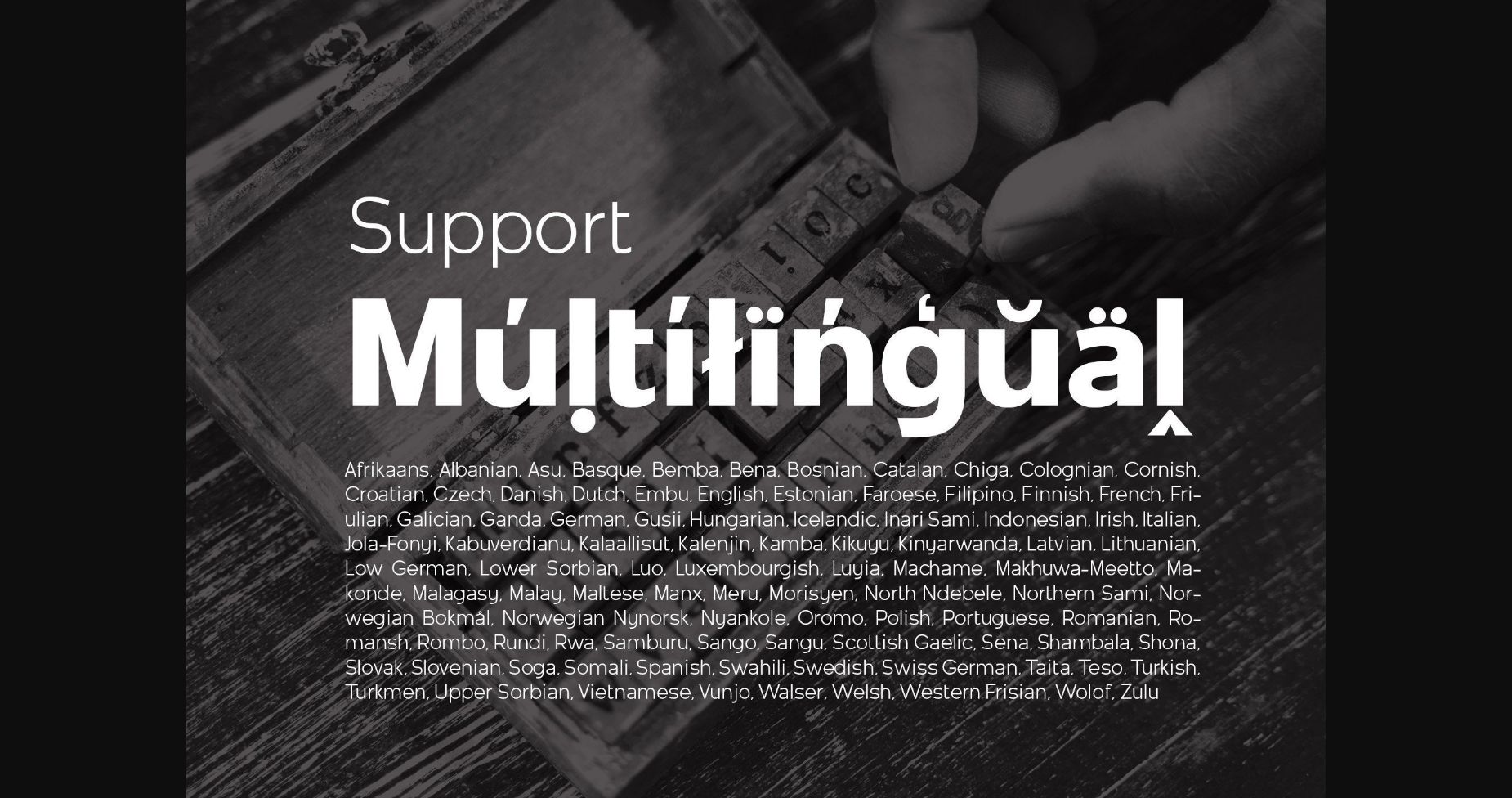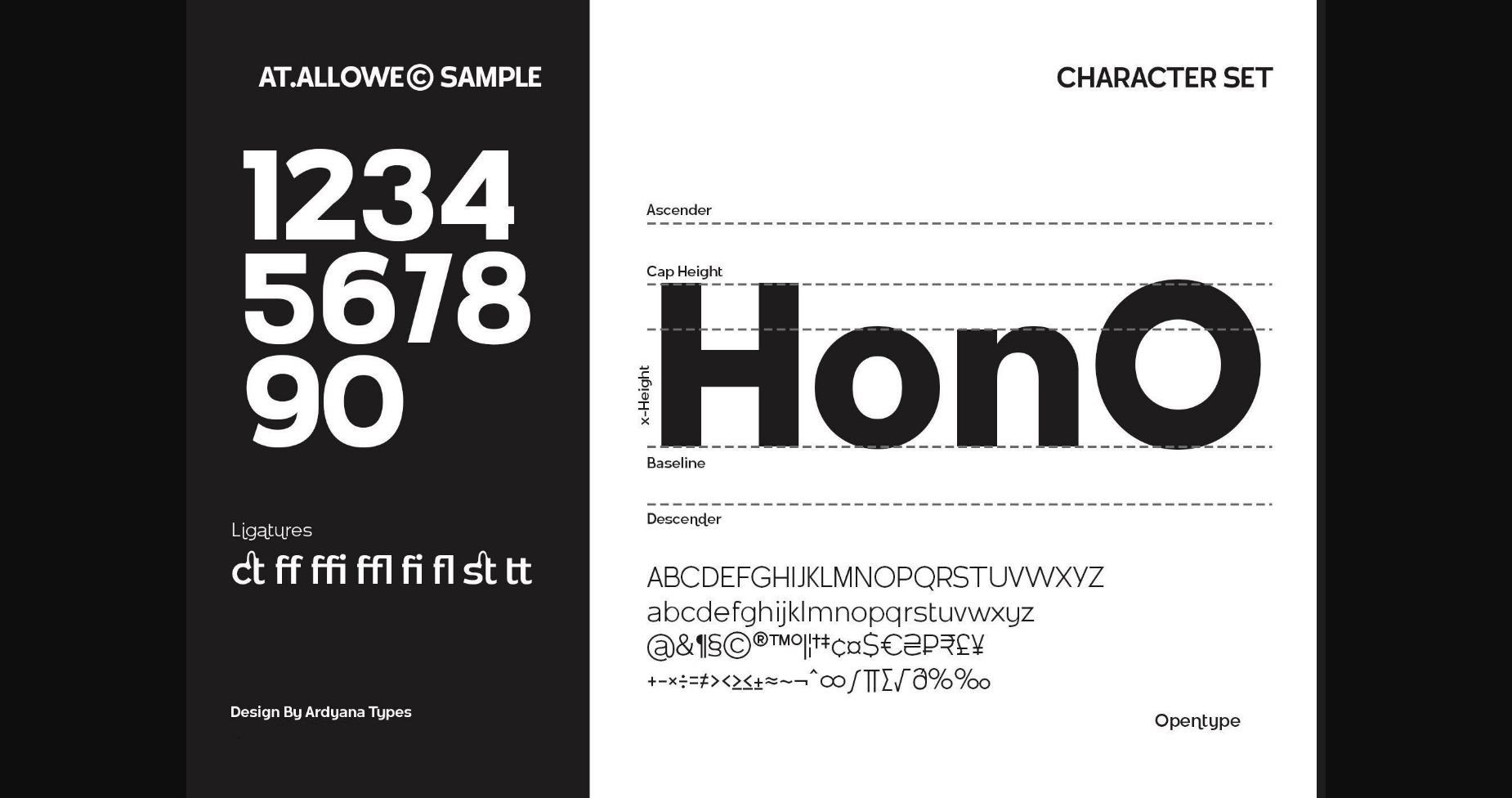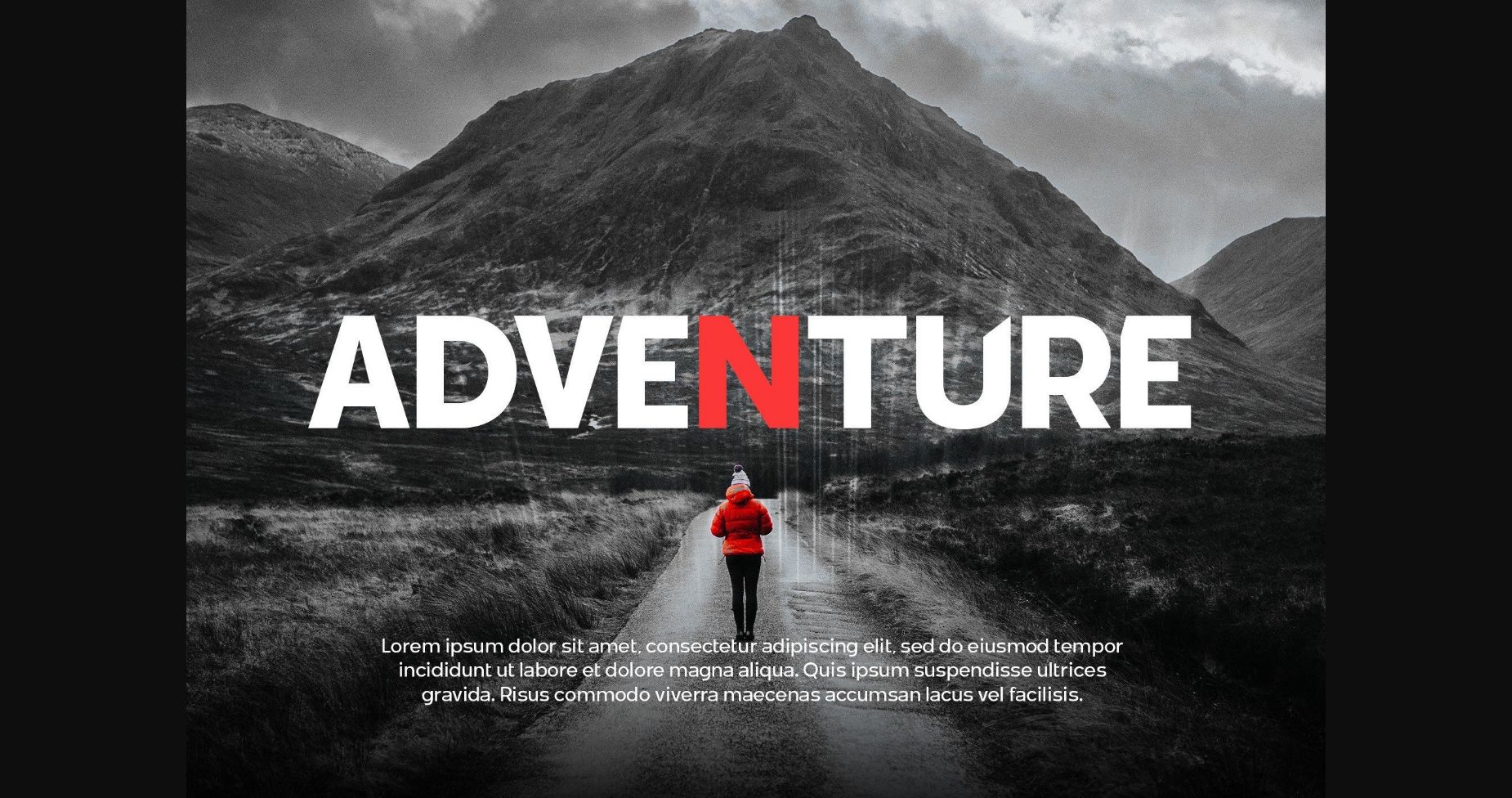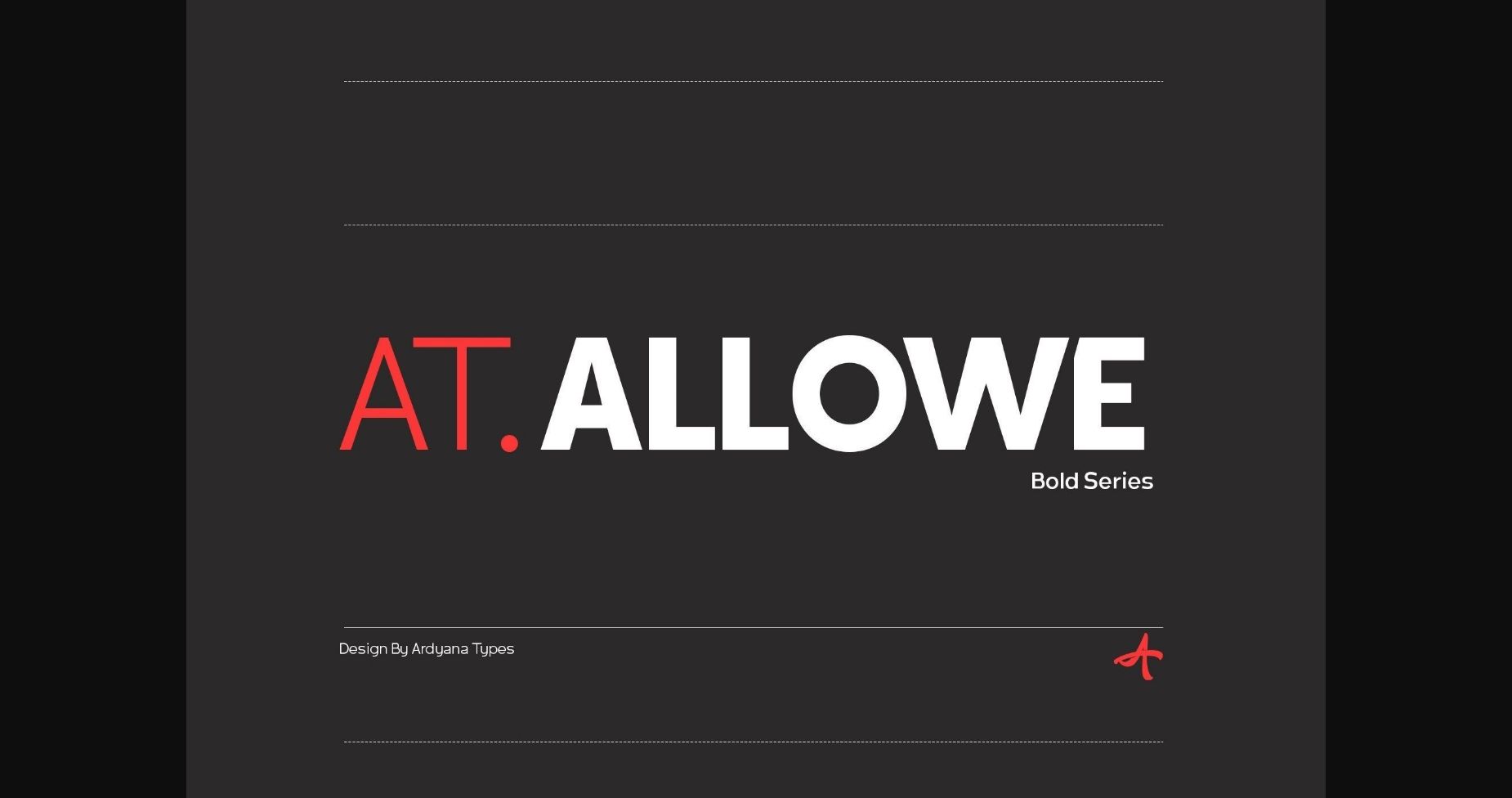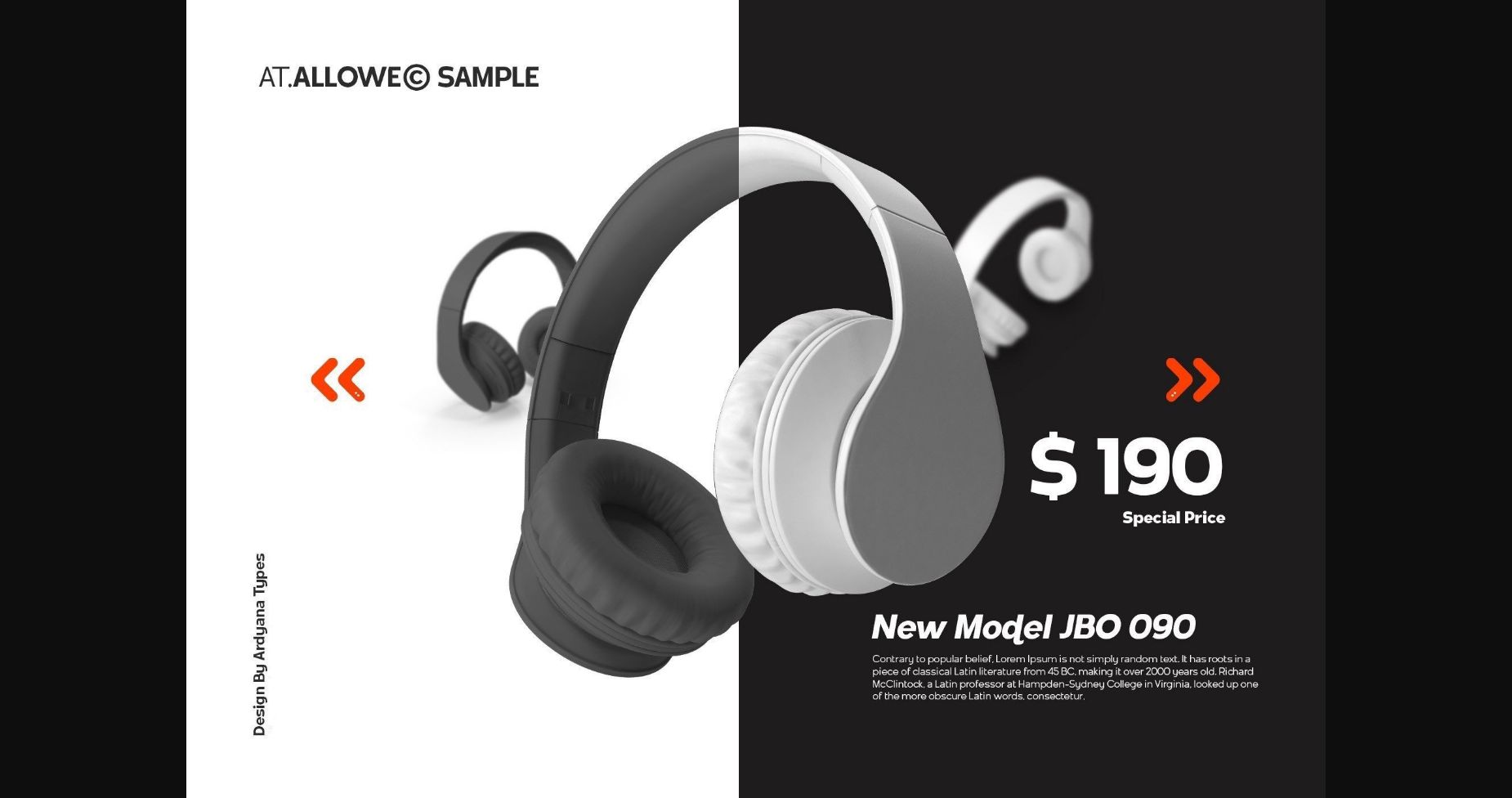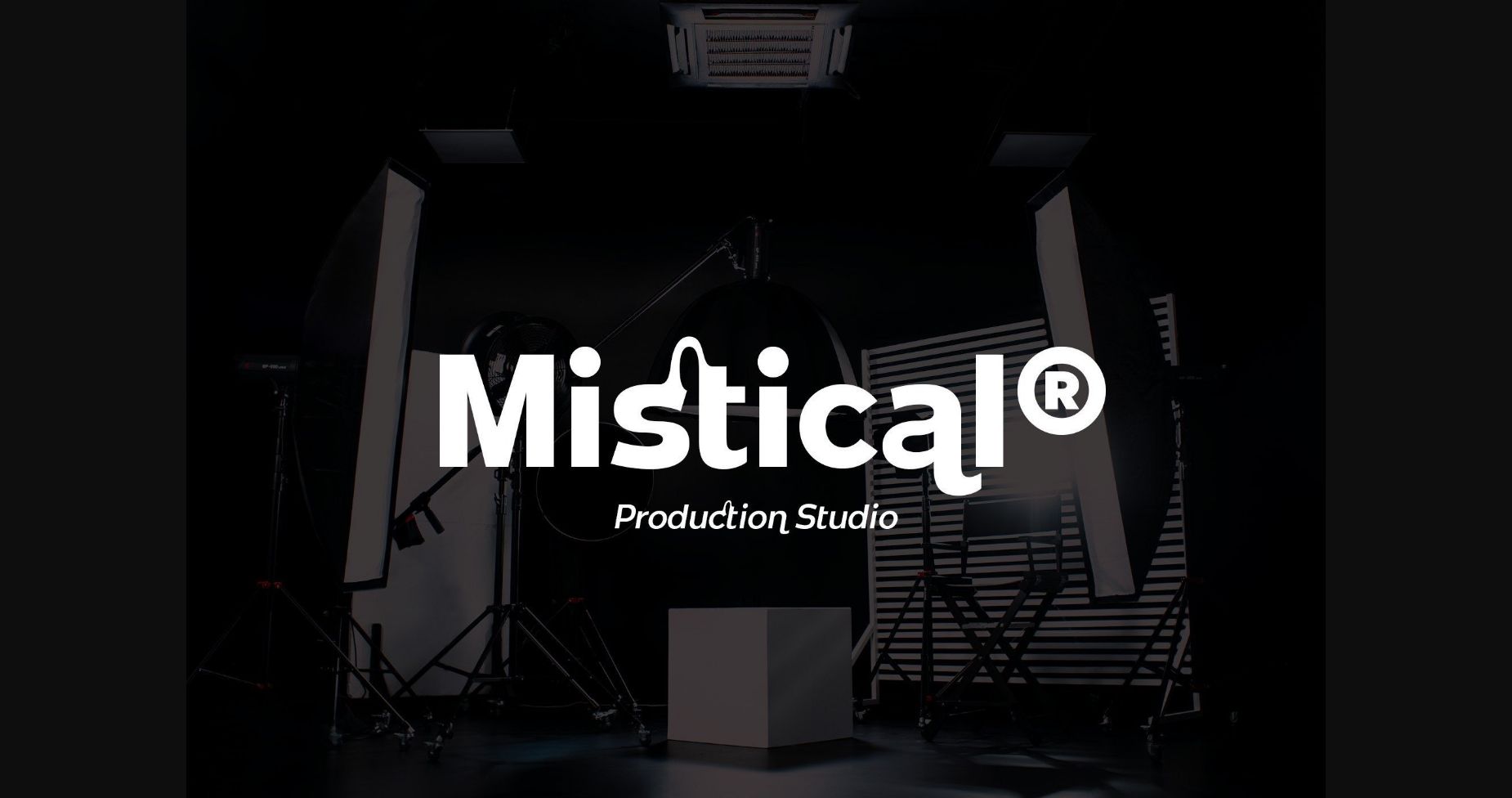
At. Allowe Font
About At. Allowe Font
At. Allowe is a modern and fresh sans serif font. Its versatility makes it suitable for a large variety of projects, so you can add it confidently to your creative ideas and watch how it makes them stand out!